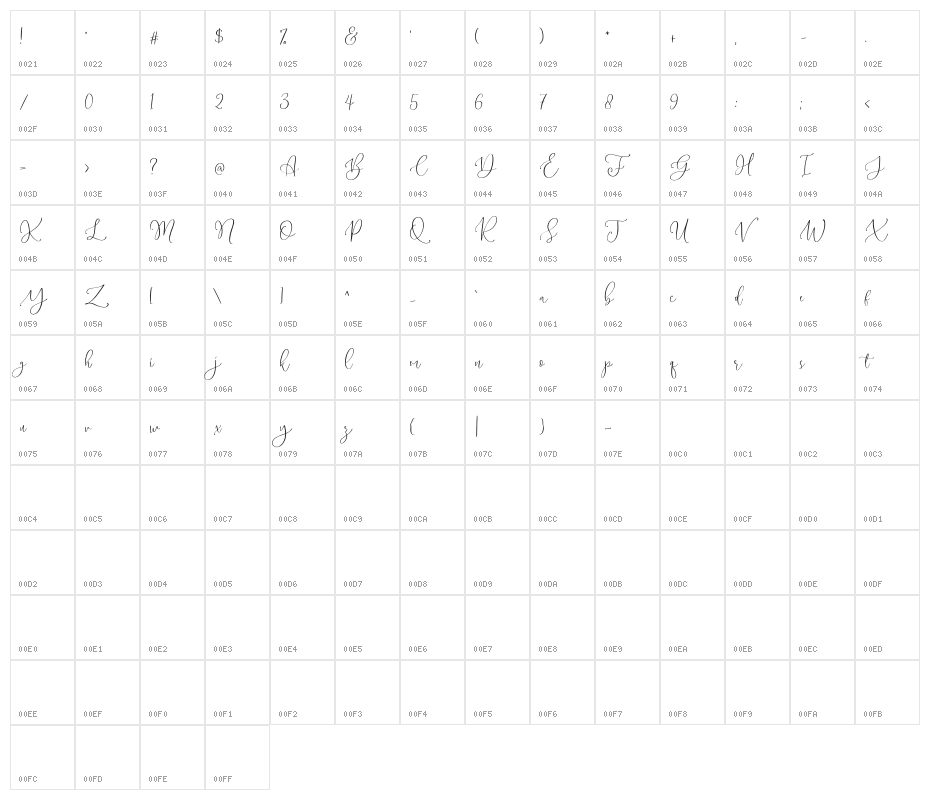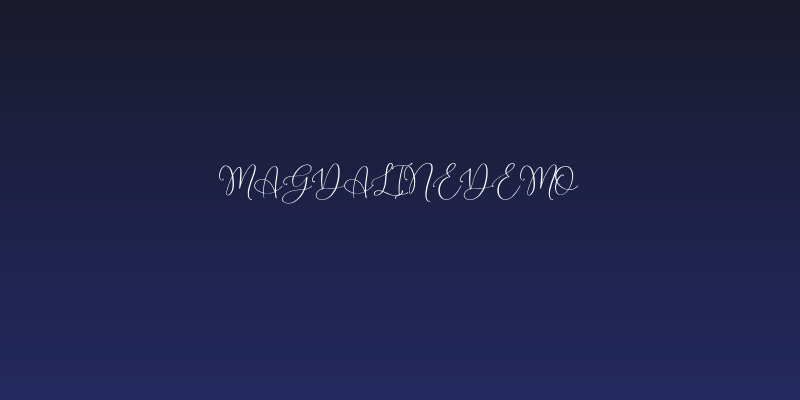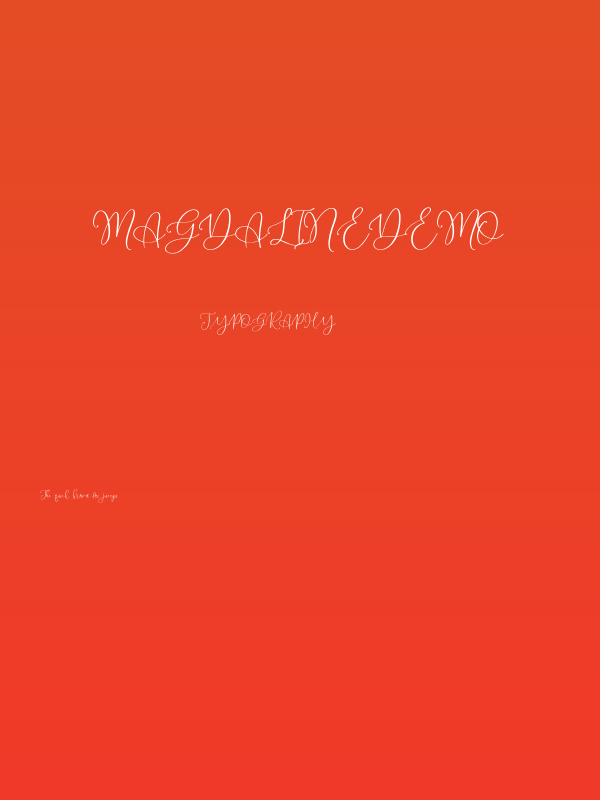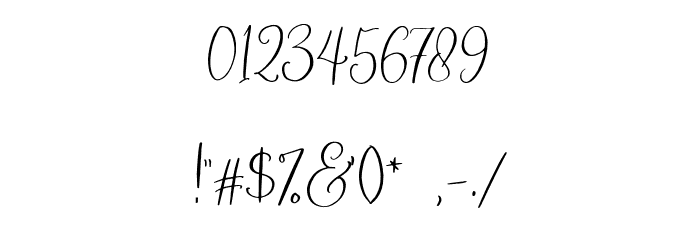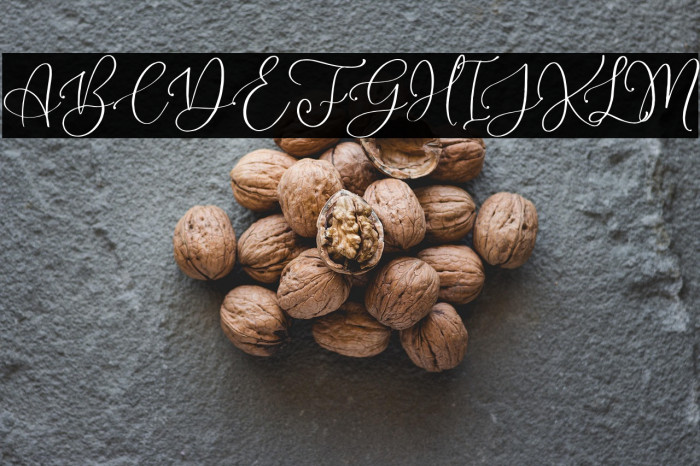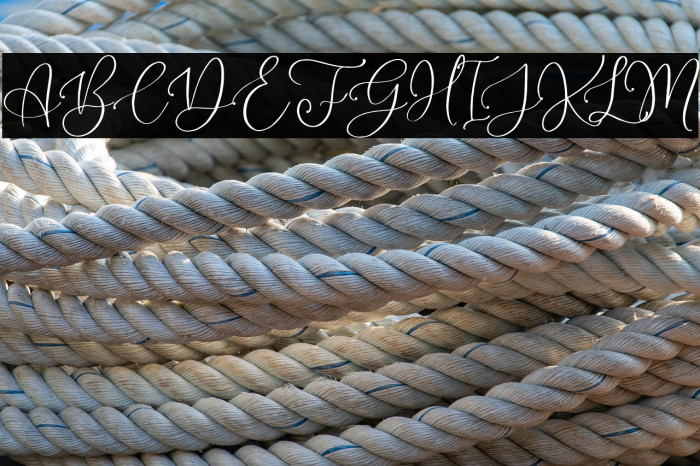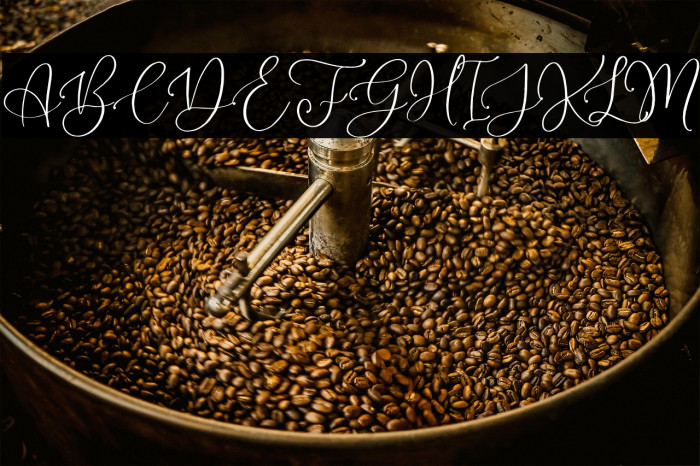
MagdalineDEMO Font
MagdalineDEMO Description
This elegant script font features a flowing, cursive style with intricate loops and flourishes. The characters are delicately crafted, offering a sense of sophistication and grace. The uppercase letters are particularly ornate, with sweeping ascenders and descenders that create a sense of movement and fluidity. The lowercase letters maintain a consistent style, complementing the uppercase with their own subtle curves. The numerals are clear and stylish, fitting seamlessly with the overall aesthetic. Special characters are thoughtfully designed, adding to the font's versatility. This font exudes a sense of luxury and refinement, making it ideal for projects that require a touch of elegance.
| Overall Style | Elegant, Sophisticated |
| Proposed Projects | Wedding invitations, luxury branding, elegant stationery, and high-end product packaging. |